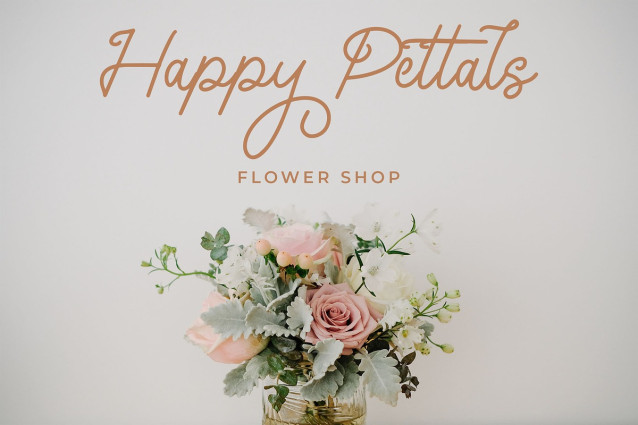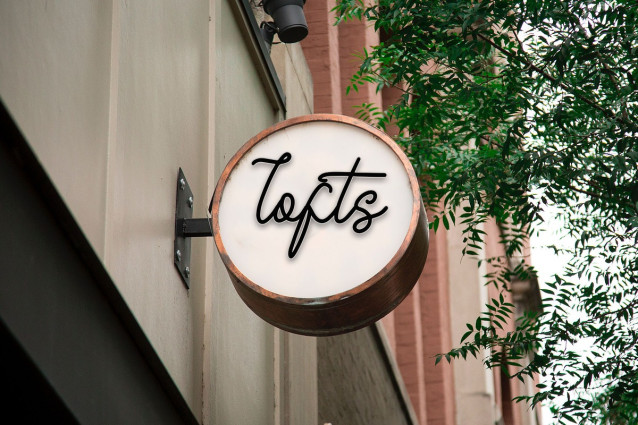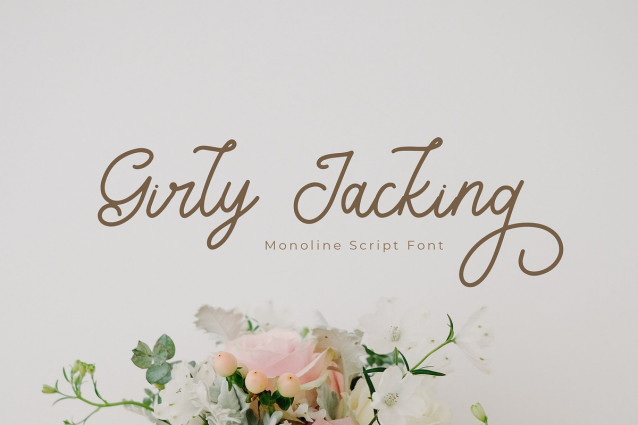
Girly Jacking Font
Girly Jacking Font, a stunning script font with a smooth monoline style. This font stands out with its beautifully crafted characters, offering a unique and elegant touch to any design. Perfect for enhancing branding, invitations, logos, and packaging, Girly Jacking brings sophistication and charm to your creative projects.